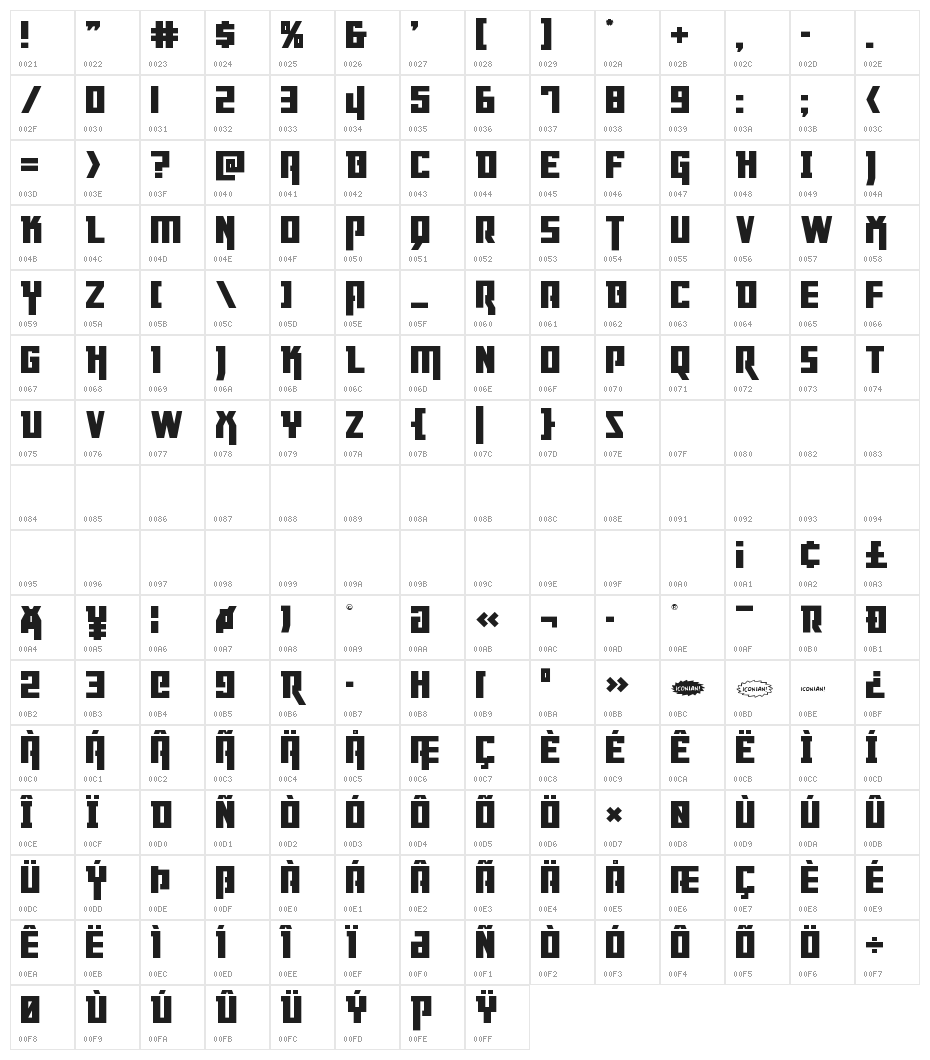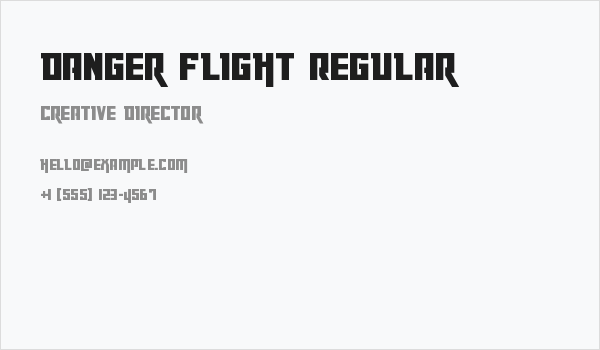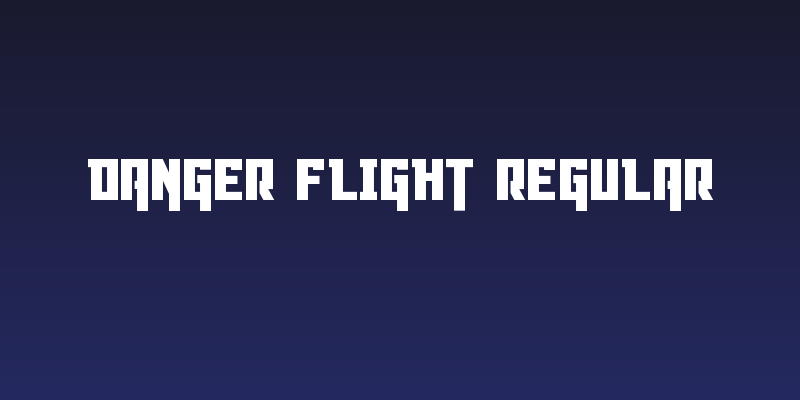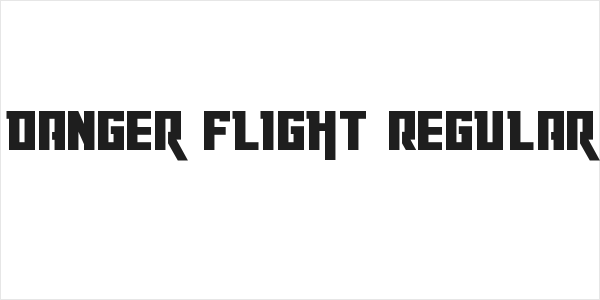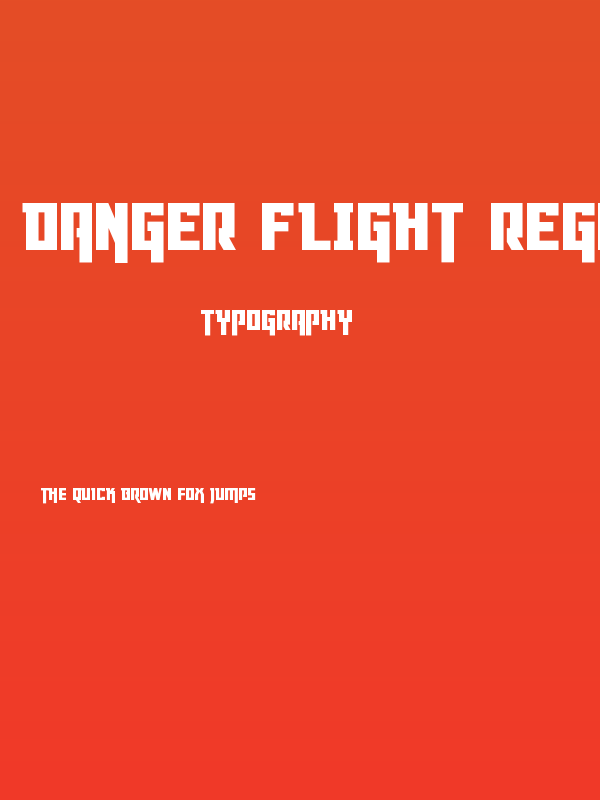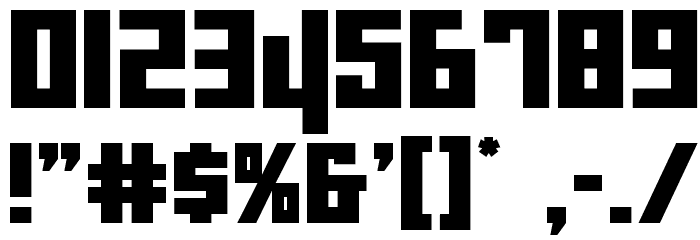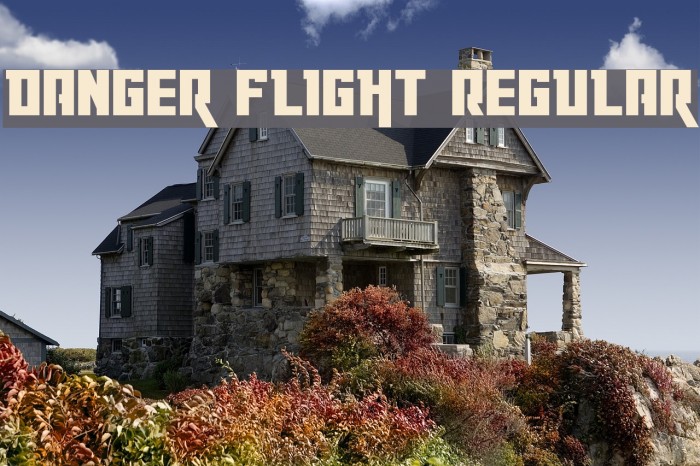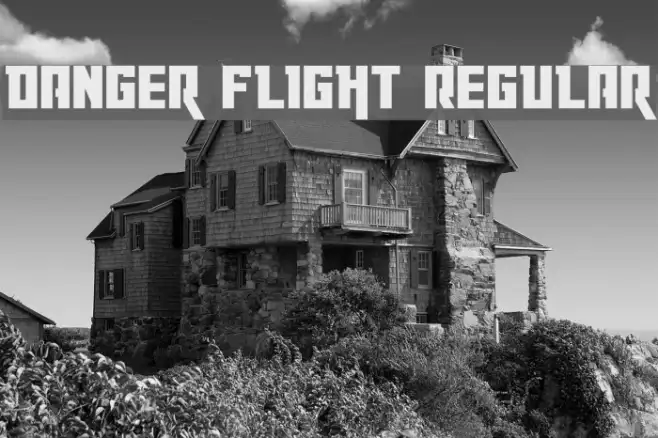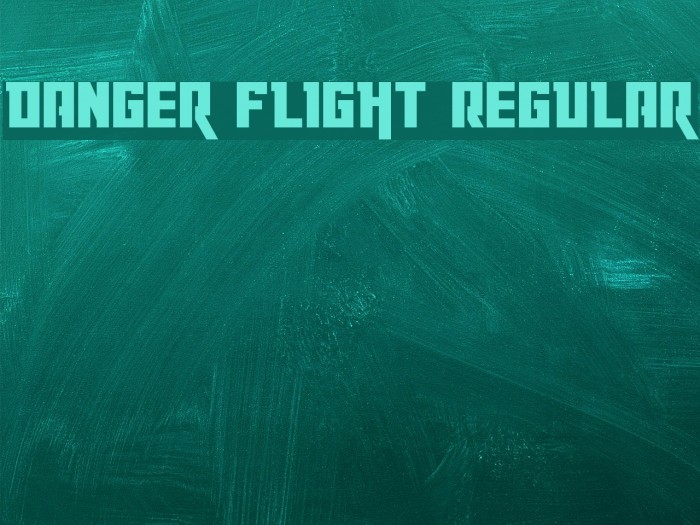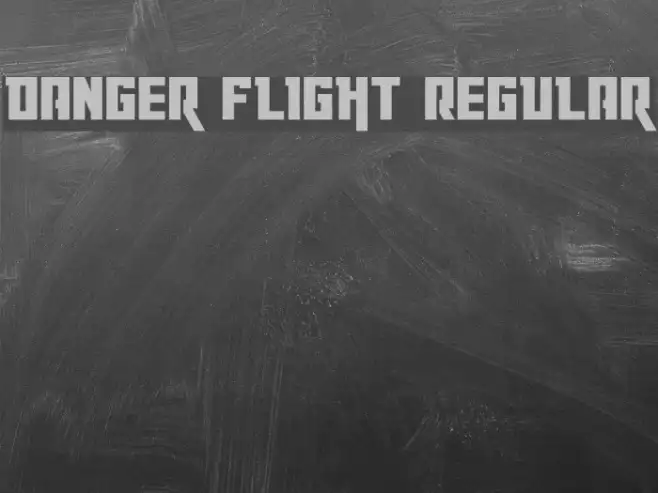
Danger Flight Regular Font
Danger Flight Regular Description
This font features a bold and geometric design with strong, angular lines and a blocky appearance. The characters are uniformly structured, creating a sense of stability and strength. The uppercase letters are particularly striking, with sharp edges and a consistent height that enhances readability. The numerals and special characters maintain the same robust style, ensuring a cohesive look across all text elements. This font is ideal for making a bold statement, with its high-impact design that commands attention.